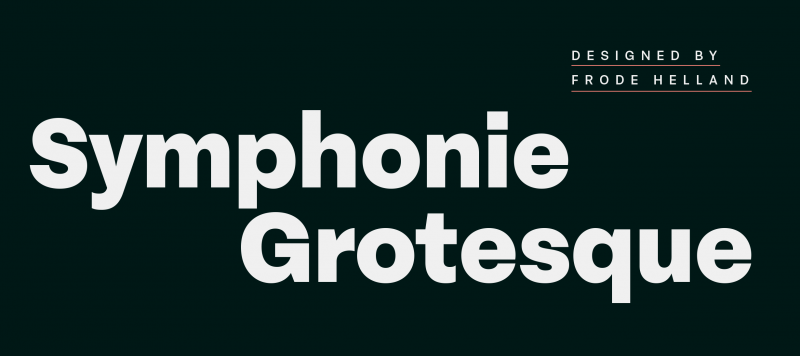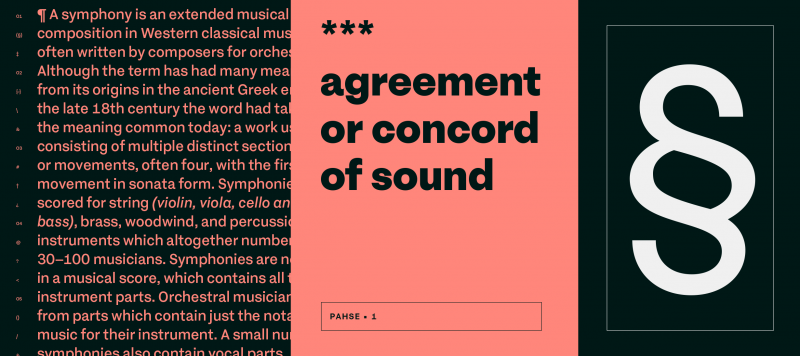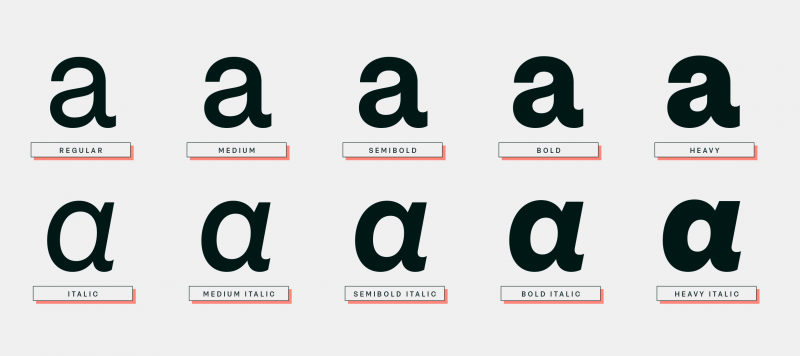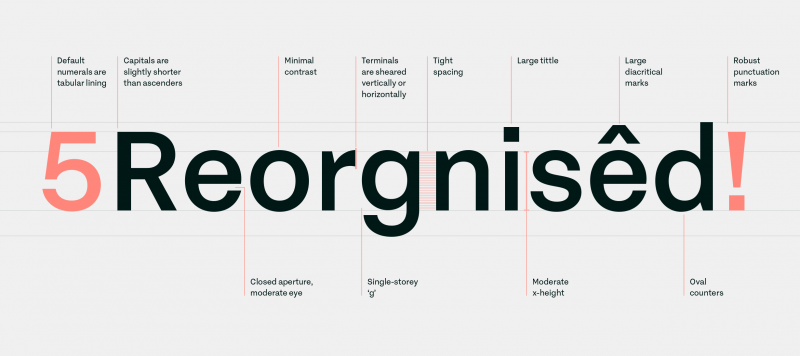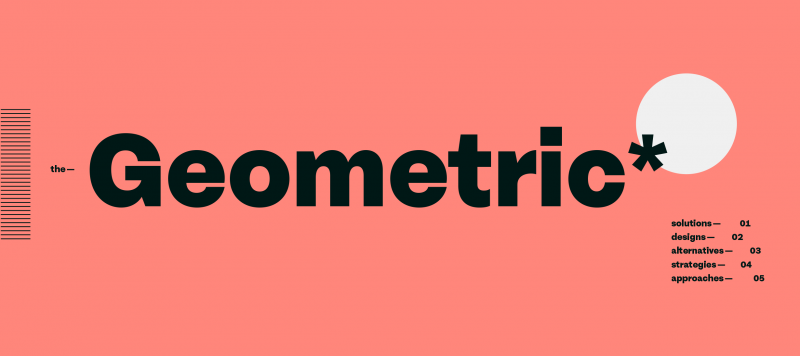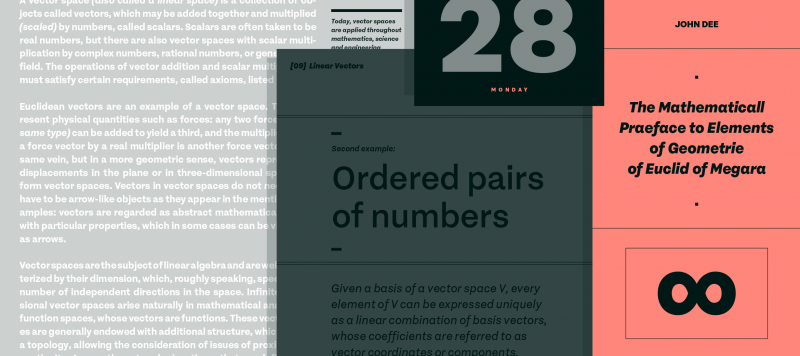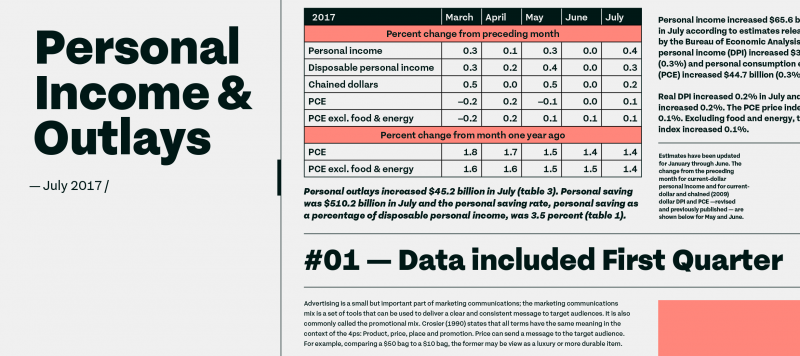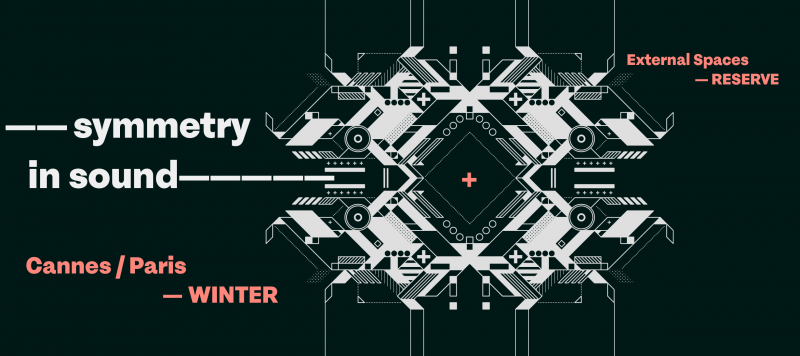
Symphonie Grotesk is a family of neo-grotesk-style sans serif fonts. There are five different weights available, ranging from Regular through Heavy. Each weight has an upright and an italic font on offer. Symphonie Grotesk’s italics are what really set it apart from other neo-grotesk families. Instead of just offering slanted, or oblique versions of the upright fonts’ letters, Symphonie Grotesk’s italic fonts include several unique, more cursive-style letterforms. For example, in Symphonie Grotesk’s upright fonts, the ‘a’ is double-storey, while the ‘g’ is single-storey (just what one would expect for a typeface of this genre). But in the italics, the ‘a’ becomes single-storey, and the ‘f’and ‘ß’ get descending tails, too. Symphonie Grotesk’s numerals are tabular lining figures; the ‘1’ always has a nice, wide base-stroke at its bottom. The middle-two diagonal-strokes of the ‘M’ remain visibly above the baseline in all of the family’s styles. The fonts’ ascenders rise quite a bit above the tops of the capital letters, but the capitals and the numerals both share the same height. Symphonie Grotesque is an excellent selection for use in branding or in other kinds of corporate identity design. It will surely also come into good use in design for galleries and publications about contemporary art. Symphonie Grotesk is the work of Frode Helland, a type designer from Norway.
Family Name | Symphonie Grotesque |
Designer(s) | Frode Helland |
Classification | Sans |